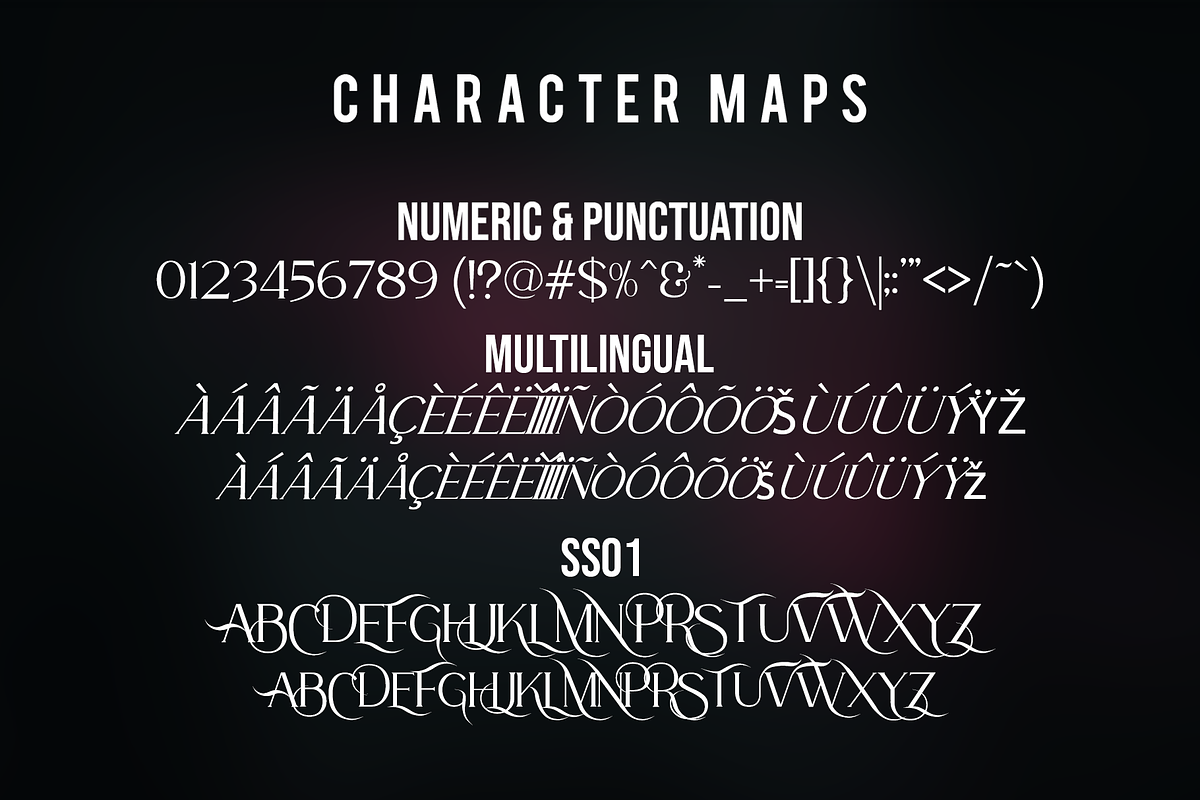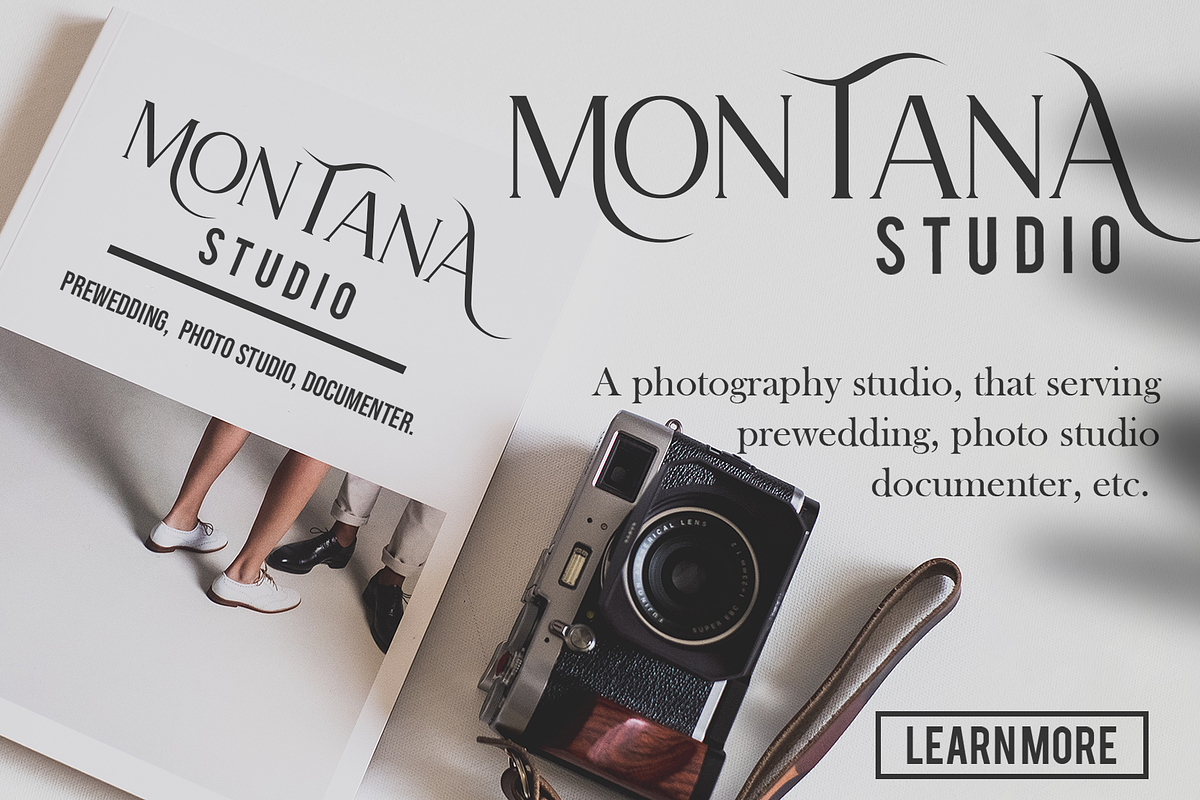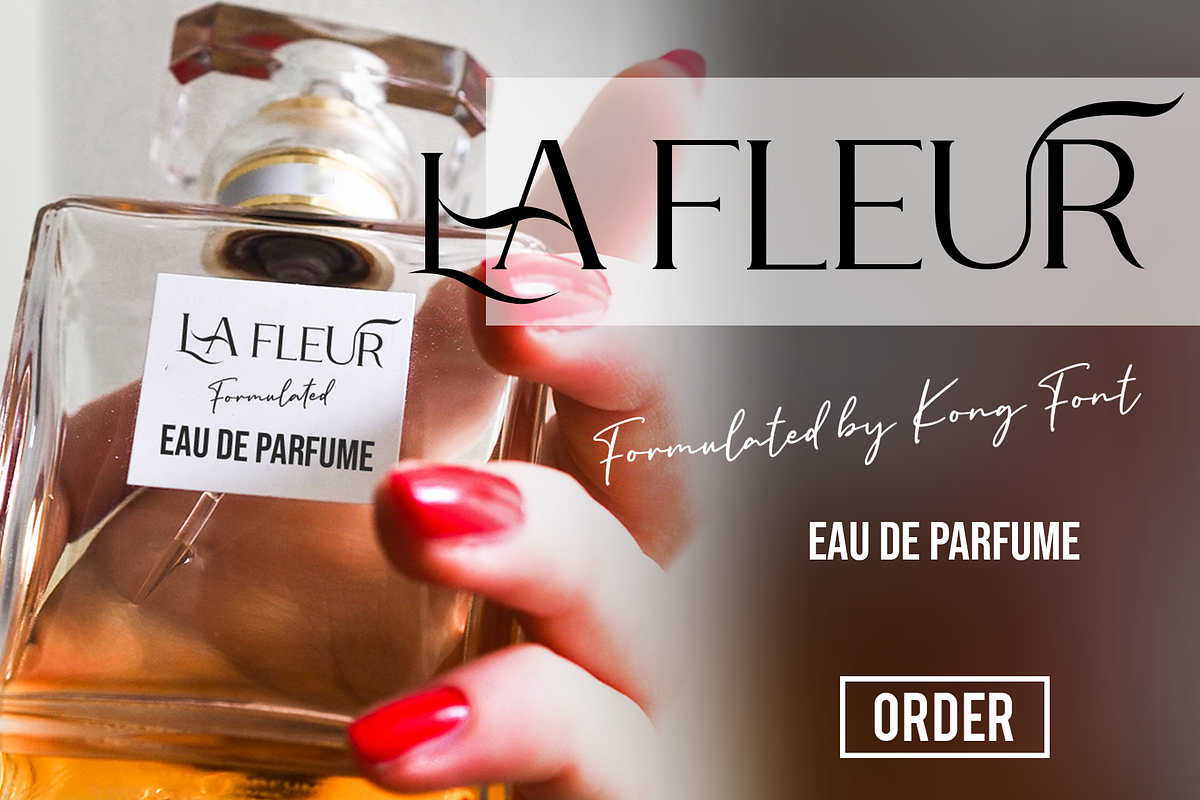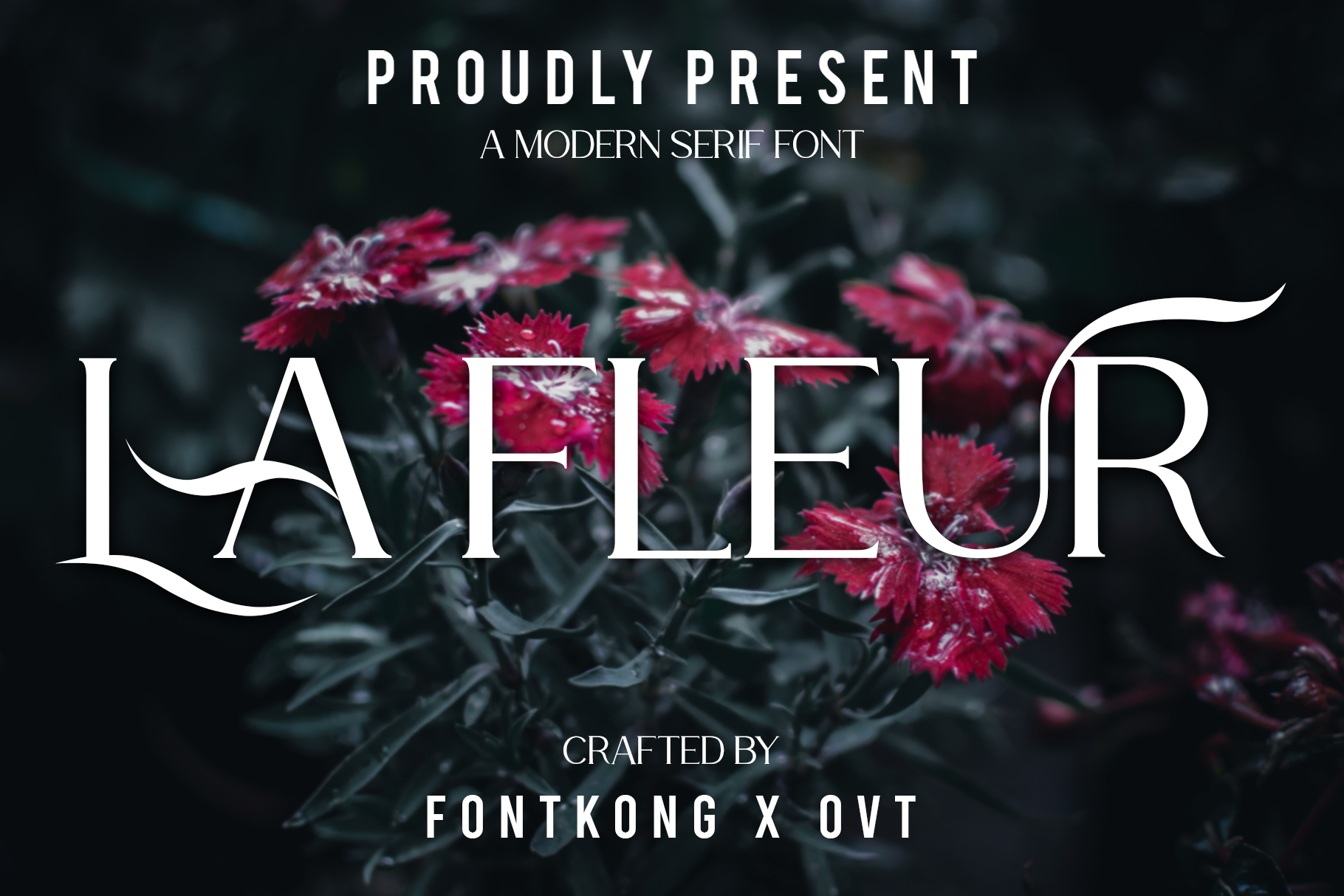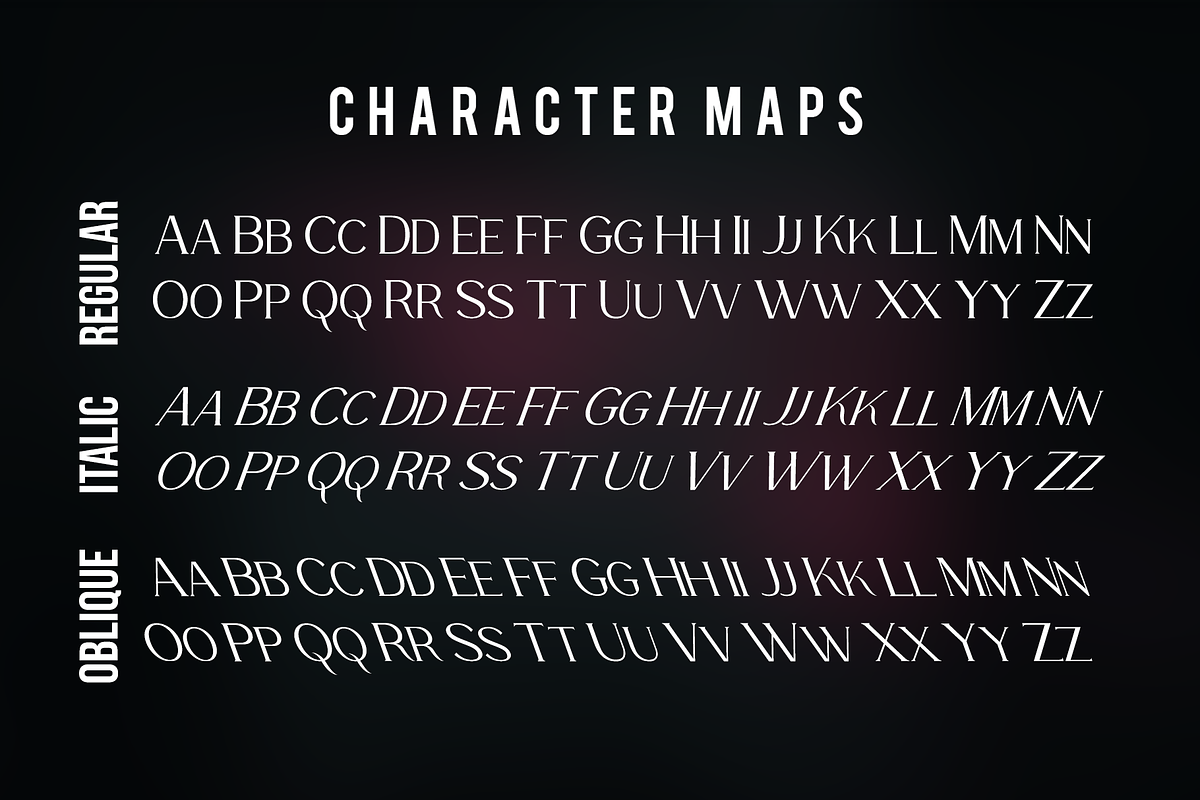
La Fleur - Serif Typeface
Introducing "La Fleur," a serif typeface that exudes elegance and grace. Perfect for designers seeking to infuse their projects with a touch of sophistication and charm, La Fleur offers a classic yet contemporary design characterized by its delicate serifs and balanced letterforms.
This typeface is meticulously crafted to ensure exceptional readability and versatility, making it ideal for a wide range of applications—from high-end branding and editorial content to wedding invitations and luxury packaging. La Fleur’s comprehensive character set includes uppercase and lowercase letters, numerals, punctuation, and special characters, providing robust support for all your creative needs.
Whether you're designing a timeless logo, a refined magazine layout, or an elegant invitation, La Fleur enhances your project with its refined style and subtle beauty. Its unique charm makes it a standout choice for those looking to make a lasting impression.